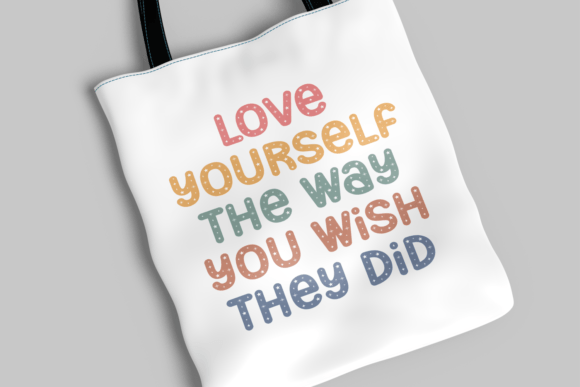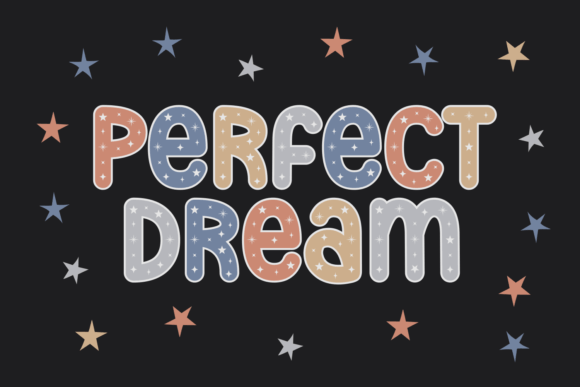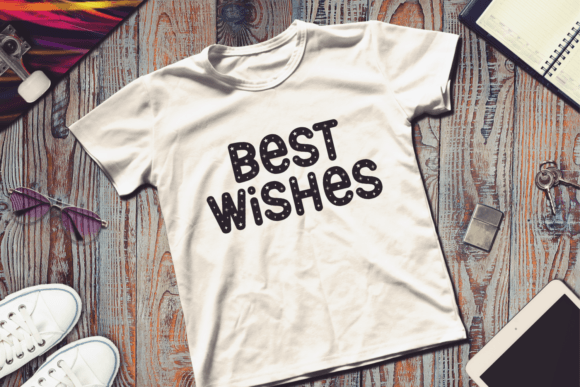
Introduction to Just Keep Going Font
Just Keep Going is a decorative font adorned with charming starry details, evoking a sense of wonder and encouragement.
Each letter is embellished with delicate stars, scattered throughout the letterforms like twinkling lights in the night sky The stars add a touch of whimsy and magic to the fontโs design, creating a visually captivating effect.